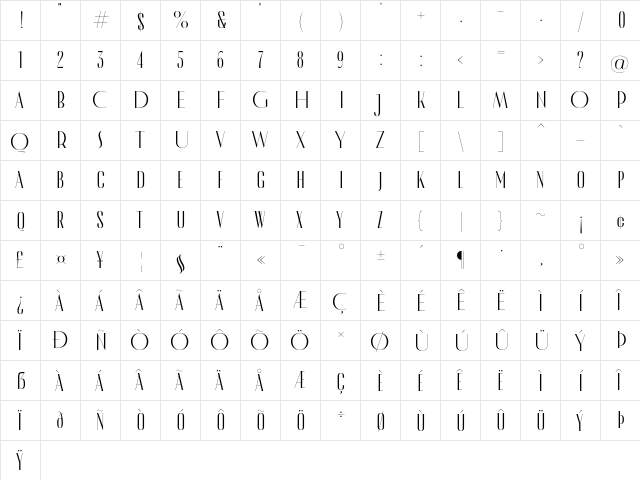
MADE Cannes Regular
| Foundry | MadeType |
| Designer | MadeType |
Design Context for MADE Cannes Typeface
MADE Cannes is a composed and adaptable typeface that performs quietly and consistently across a wide range of design contexts.